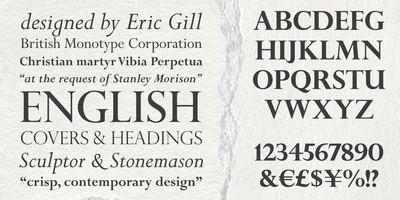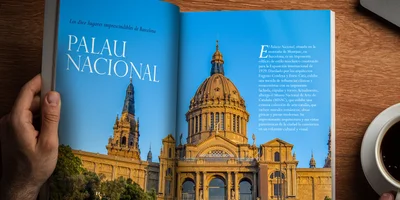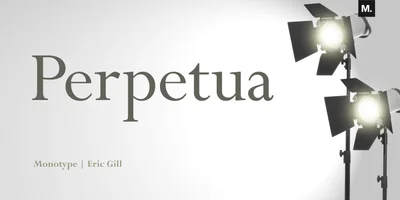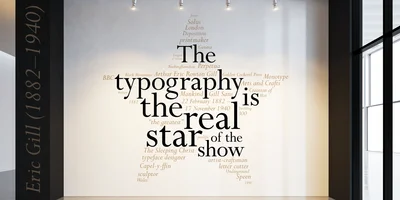
Heldane vs Perpetua
Heldane and Perpetua are both serif typefaces sharing a elegant foundation. Where Heldane leans editorial, display, Perpetua brings transitional, formal. Compare which suits your Editorial project.
66% Similarity
Heldane
ElegantModern
EditorialDisplay
Perpetua
Transitional
ElegantFormal
Feature Heldane Perpetua
Classification serif serif
Variable Font No No
Weights Multiple Multiple
Italics Yes Yes
Language Support latin, latin-extended latin, latin-extended
Source Klim Type Foundry Monotype
Luxury
Display & Headlines
Book Design
Recommended: Heldane
• editorial, display design character
• Suited for Display and Branding
• From Klim Type Foundry
Consider: Perpetua
• transitional, formal design character
• Suited for Books and Inscriptional
• From Monotype